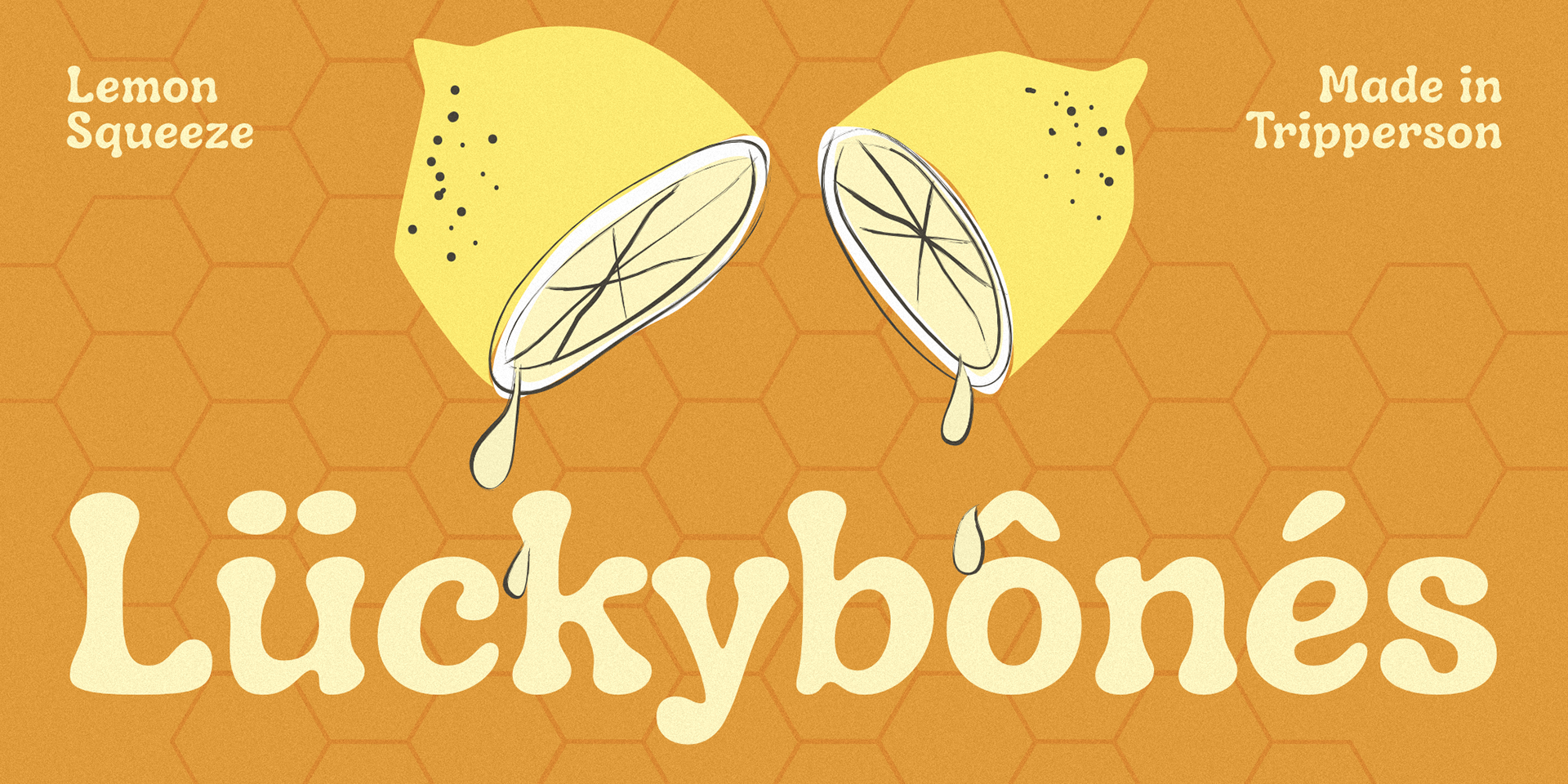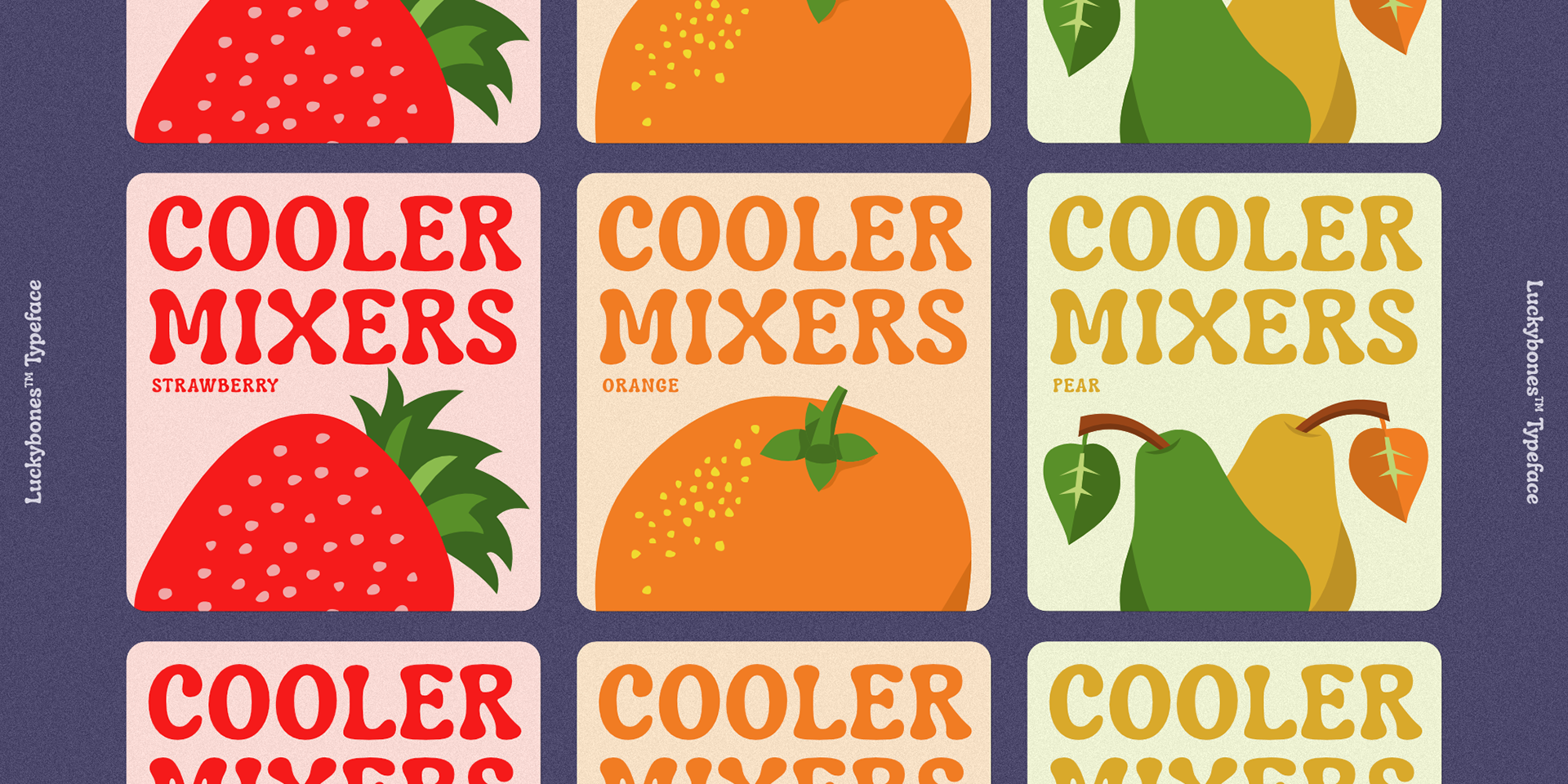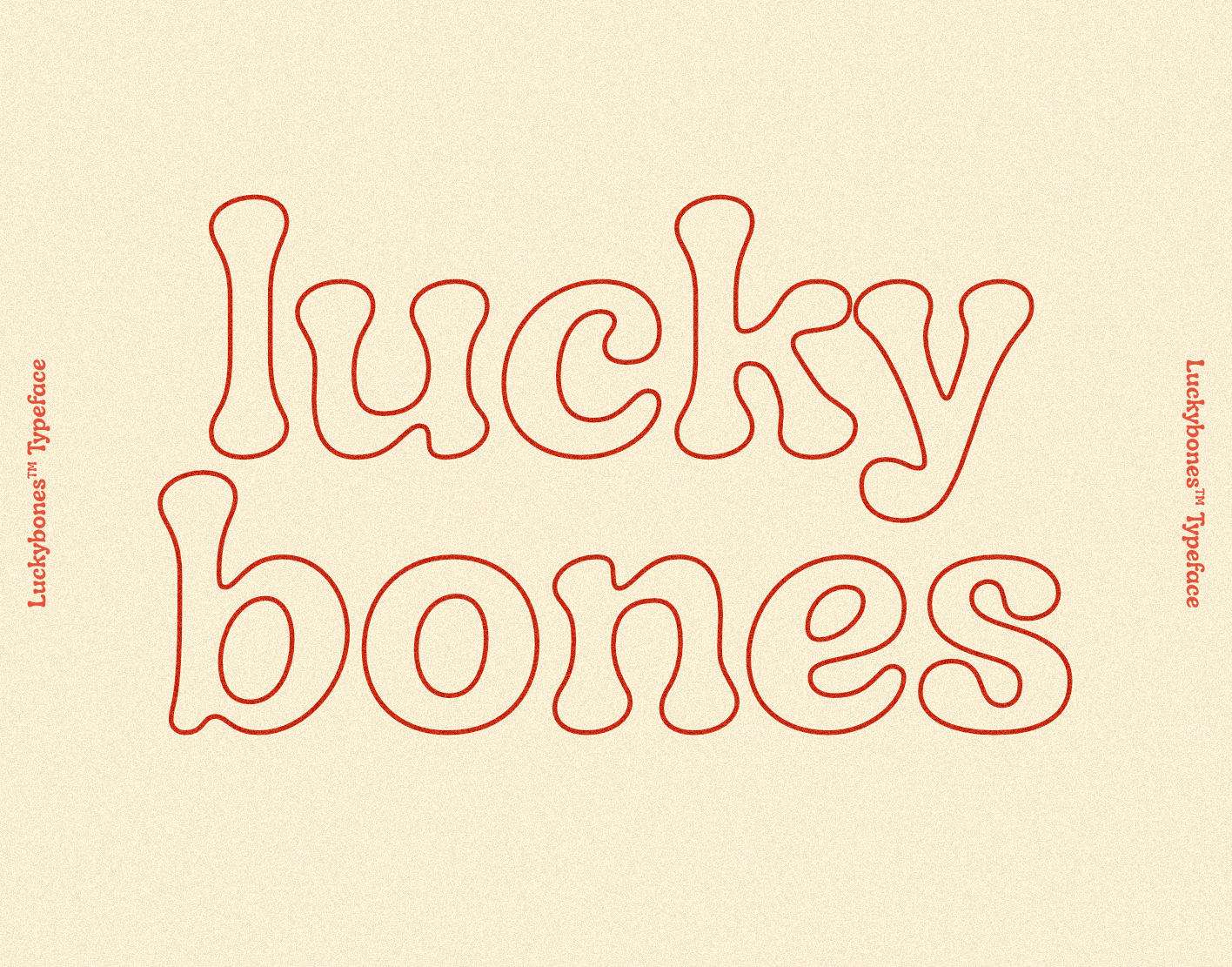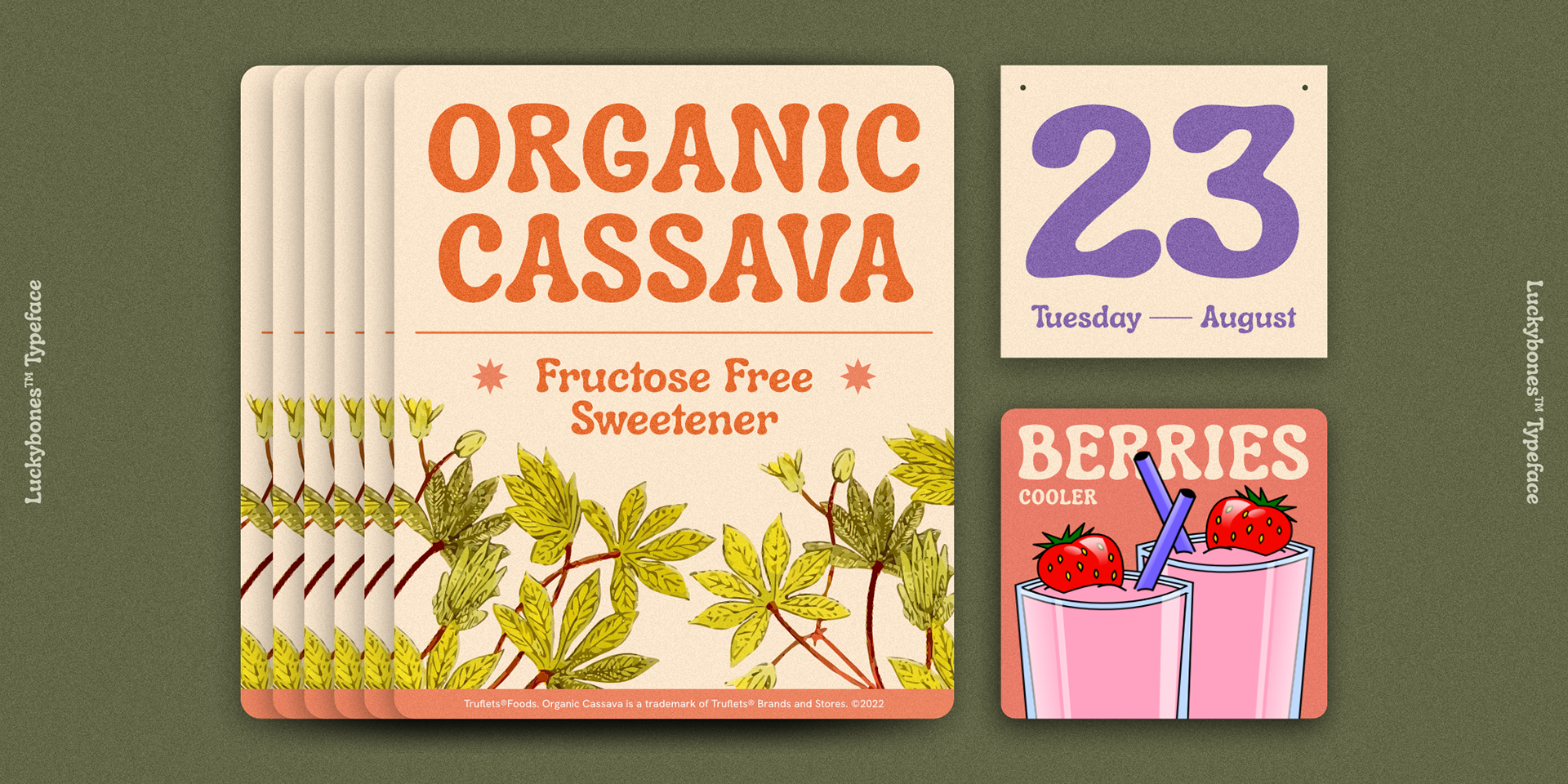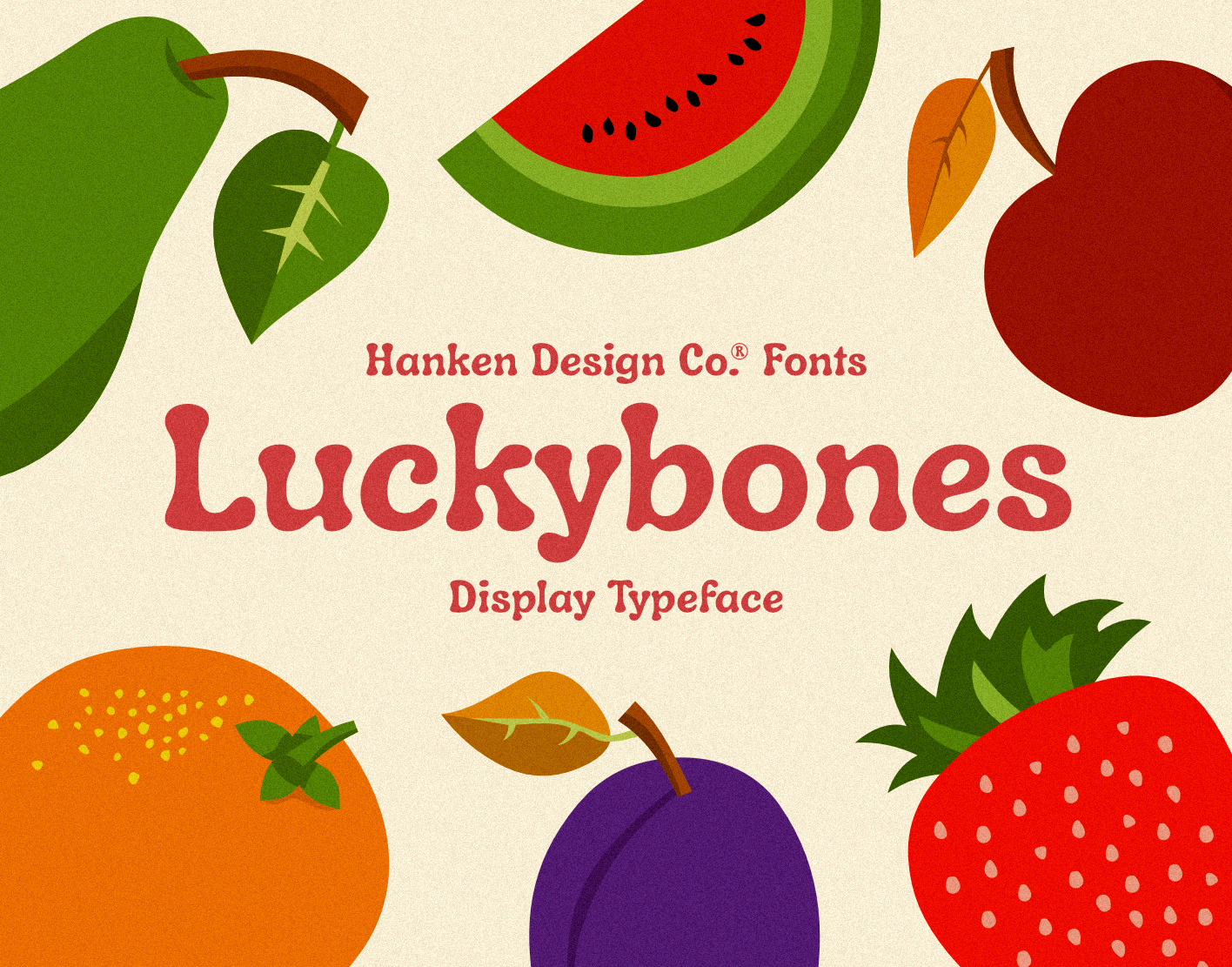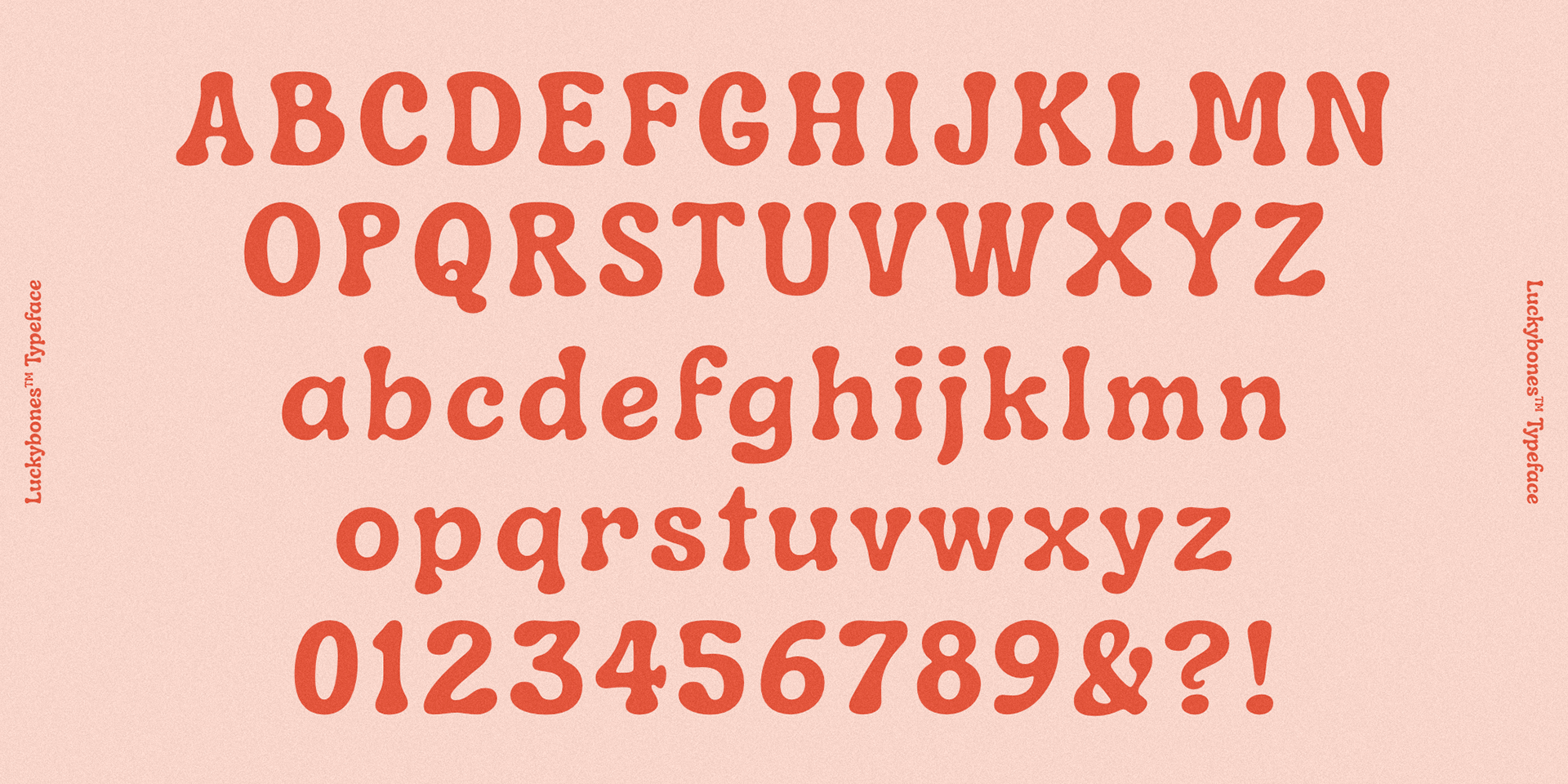
Luckybones™ is a display typeface that relaxes the brain from all the precision work we are all into.  It is a reminder that we should loosen up every now and then.
Design: Alfredo Marco Pradil and Hanken Design Co.
Class: Display
Styles: 1 (Bold)